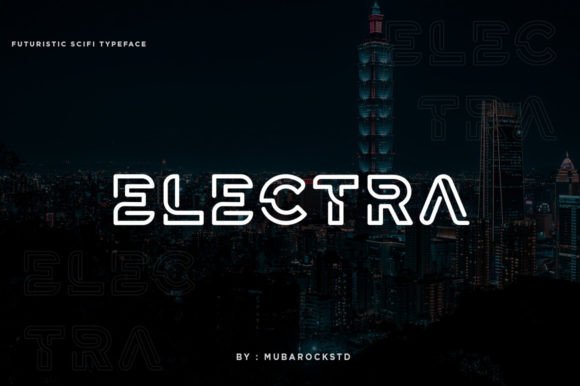
Attention, laser engraving enthusiasts! Brace yourselves for the arrival of Electra Font, the ultimate game-changer for your creative arsenal. This modern masterpiece is crafted with meticulous care by mubarocktype, promising to ignite your designs with a captivating minimalist charm.
Electra Font is more than just a collection of characters; it's an invitation to let your creativity soar. Its clean lines and crisp edges will effortlessly elevate any laser engraving project, transforming ordinary objects into extraordinary works of art. Whether you're a seasoned engraver or just starting to explore the world of laser artistry, Electra Font is the perfect companion for your journey.
This versatile display font transcends the boundaries of conventional fonts, seamlessly adapting to a myriad of design styles. Whether you're crafting personalized keepsakes, etching intricate patterns, or creating eye-catching signage, Electra Font will empower you to express your artistic vision with unparalleled precision and flair.
Embrace the allure of Electra Font and witness the transformative power it wields over your laser engravings. Its ability to breathe life into your creations will ignite your passion for the craft, propelling you to new heights of design excellence.